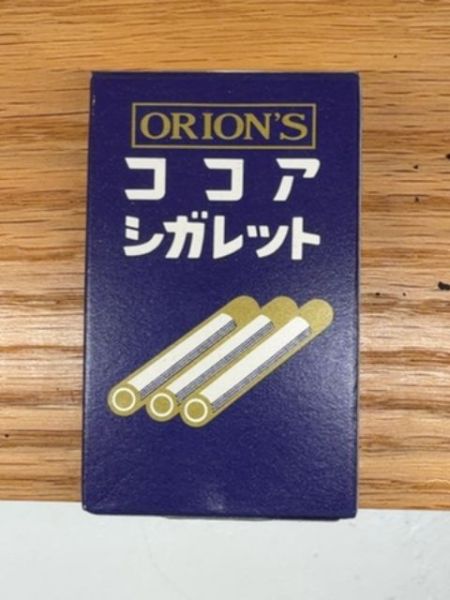
Orion's Cocoa Cigarettes
A confectionery product resembling cigarettes, made primarily from cocoa. These are novelty candies intended for children, offering a playful simulation of smoking.
Country of Origin
Japan
Typography
The typography on the packaging uses a bold, sans-serif font for the katakana script, emphasizing clarity and simplicity. The English text 'ORION'S' is in a serif typeface enclosed in a gold border, adding a classic and refined touch that contrasts with the playful imagery.
Packaging
The packaging is a small, rectangular box with a rich dark blue color serving as the background. It features a gold outline and contains illustrations of three cigarette-like candies, enhancing its playful yet nostalgic air.
Facts
- These candies are popular for their playful imitation of smoking.
- They have been a nostalgic treat in Japan for decades.
- The product design remains largely unchanged, contributing to its retro appeal.